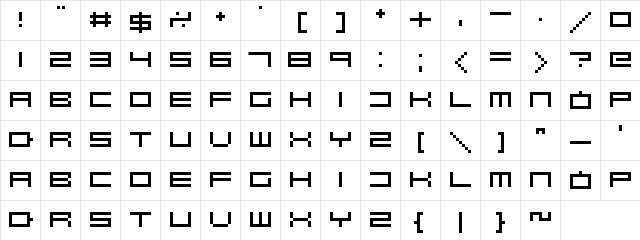
Robotastic Regular
| Designer | Darrell Flood |
Design Context for Robotastic Typeface
Robotastic takes a measured approach to typography — its balanced proportions and neutral character make it a reliable workhorse for both digital and print work.
Pro Tip: Use Robotastic in both headline and body roles to test its range before committing to a single application.